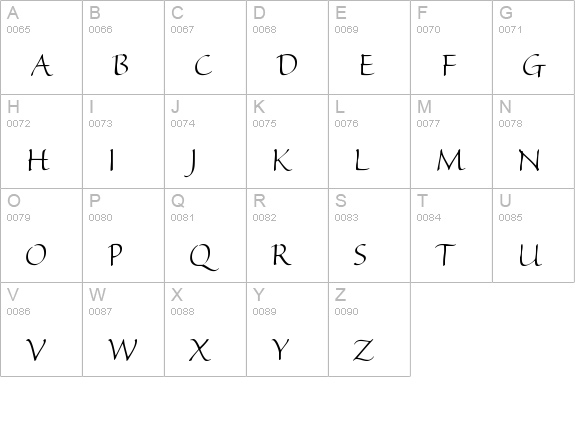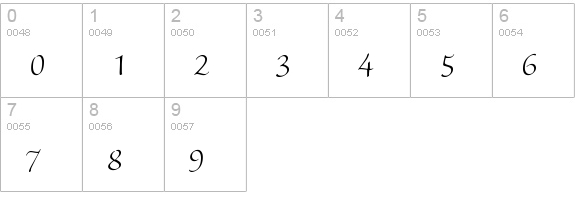
Sanvito Pro Light Subhead is a refined, elegant variant in the Sanvito typeface family \xE2\x80\x94 well suited to elegant body text, refined sub-headings, and luxury branding.
Sanvito Pro Light Subhead is a stunning font that effortlessly combines elegance with readability. With its refined and delicate letterforms, this font is perfect for adding a touch of sophistication to any design project. Whether used for headlines, subheadings, or captions, Sanvito Pro Light Subhead commands attention and exudes a sense of grace. What sets Sanvito Pro Light Subhead apart is not only its exquisite design but also its availability as a free download. Yes, you read that right! This exceptional font can be freely obtained at FontsMarket.com. This means that you can now elevate your designs without any cost or hassle. In addition to its aesthetic appeal, Sanvito Pro Light Subhead offers exceptional legibility. Each character is meticulously crafted, ensuring maximum clarity even at smaller sizes. Its clean lines and generous spacing create a harmonious balance, resulting in a seamless reading experience. Whether you're working on a branding project, editorial design, or simply looking to enhance the visual impact of your content, Sanvito Pro Light Subhead is a versatile choice that will not disappoint. Its timeless elegance and contemporary charm make it suitable for a wide range of applications. So why wait? Download Sanvito Pro Light Subhead for free at FontsMarket.com and unleash your creativity with a font that is as stylish as it is accessible. Elevate your designs with this exceptional typeface and captivate your audience with its refined beauty.